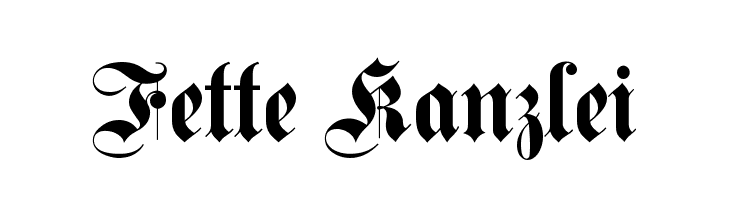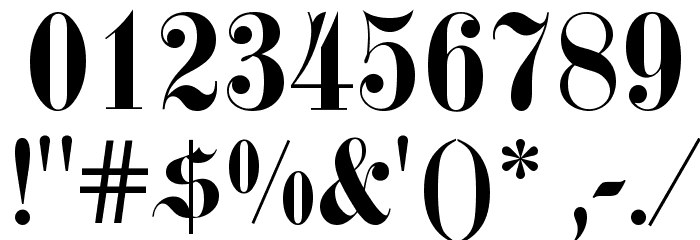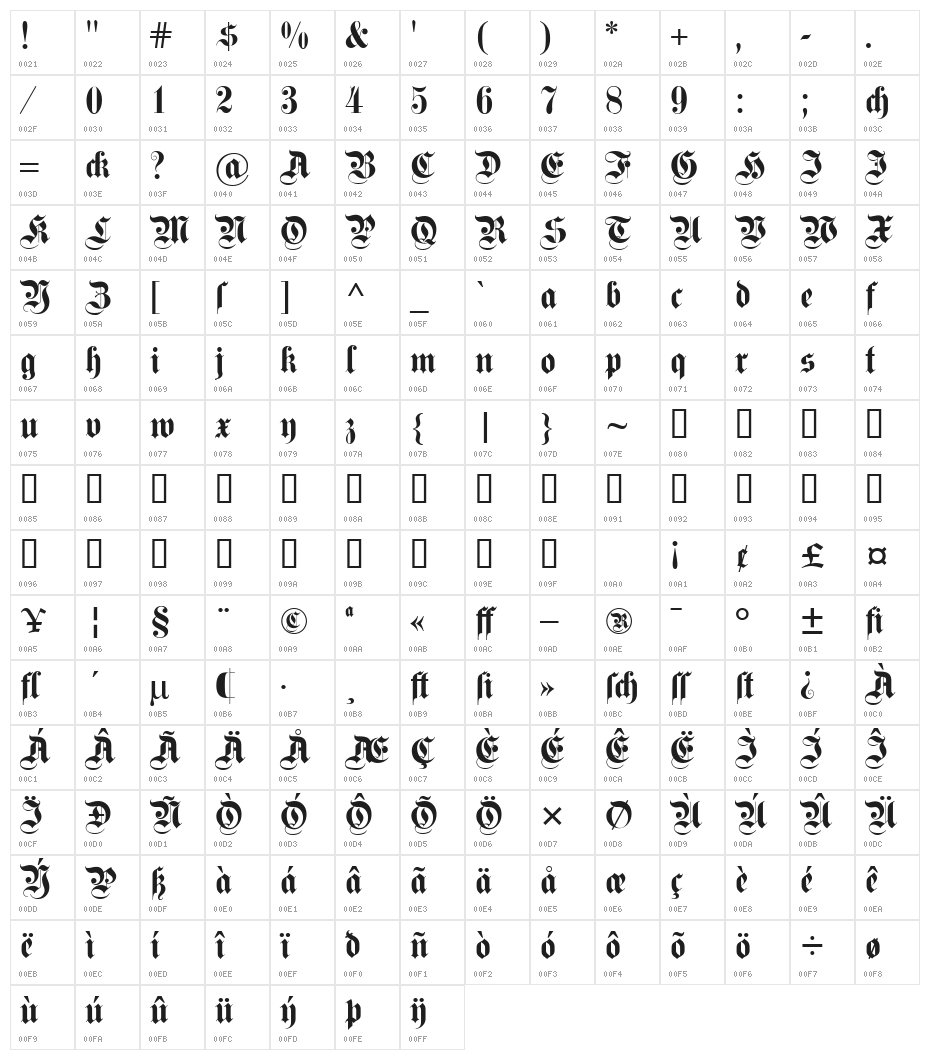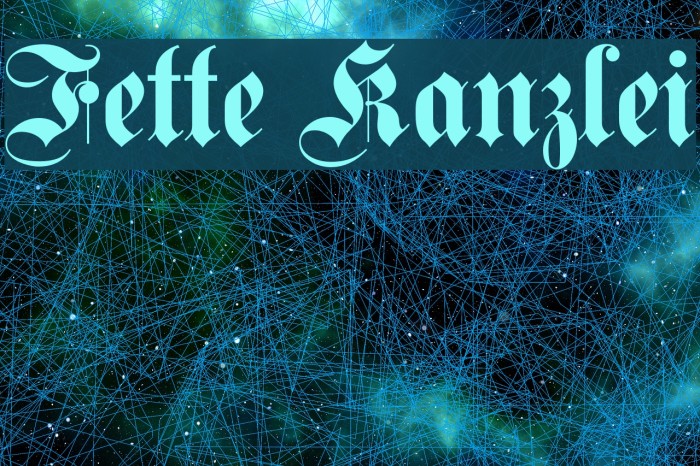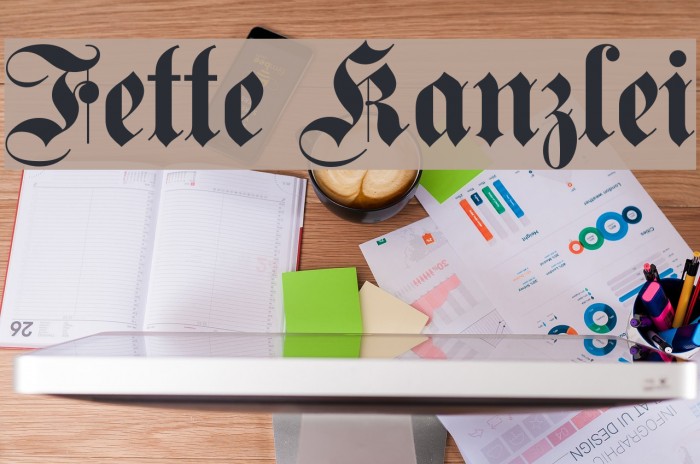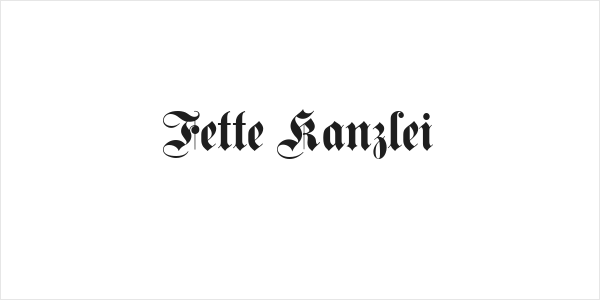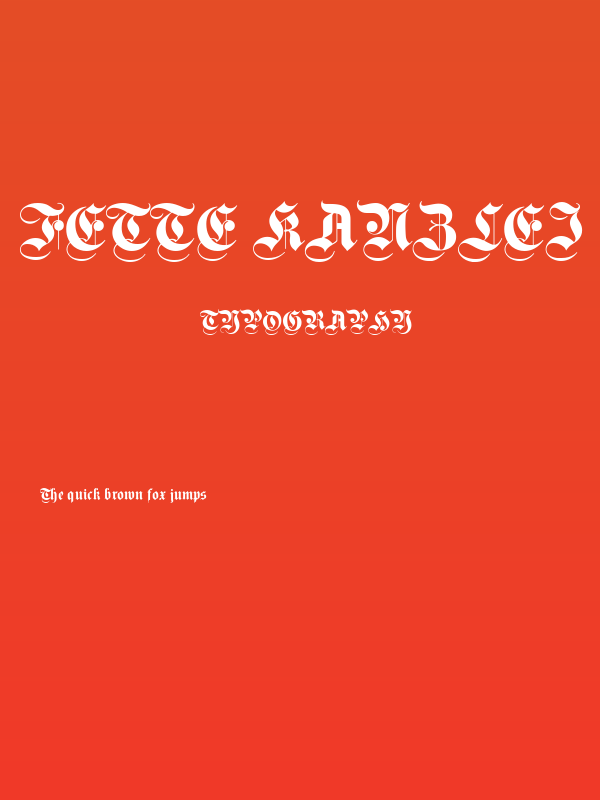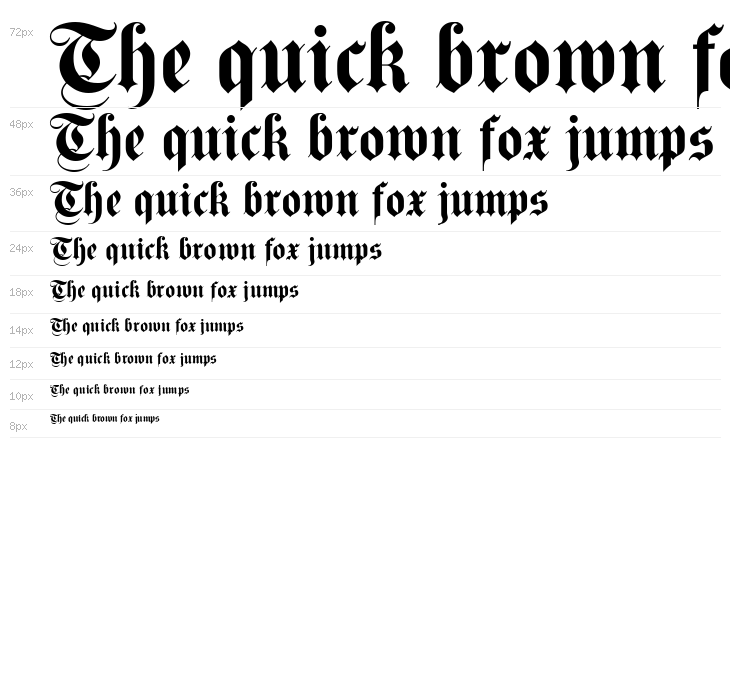
Fette Kanzlei Font
Fette Kanzlei Description
This font is a bold and striking Blackletter typeface, characterized by its intricate and ornate design. The uppercase letters feature elaborate flourishes and sharp angles, giving them a dramatic and historical appearance. The lowercase letters maintain a consistent weight, with thick strokes and pointed serifs that enhance the Gothic style. Numbers and special characters are equally bold, with a strong presence that complements the overall aesthetic. This typeface evokes a sense of tradition and authority, making it suitable for projects that require a classic and impactful look.
| Proposed Projects | Ideal for use in branding, logos, posters, and any design that seeks to convey a sense of tradition and authority. |